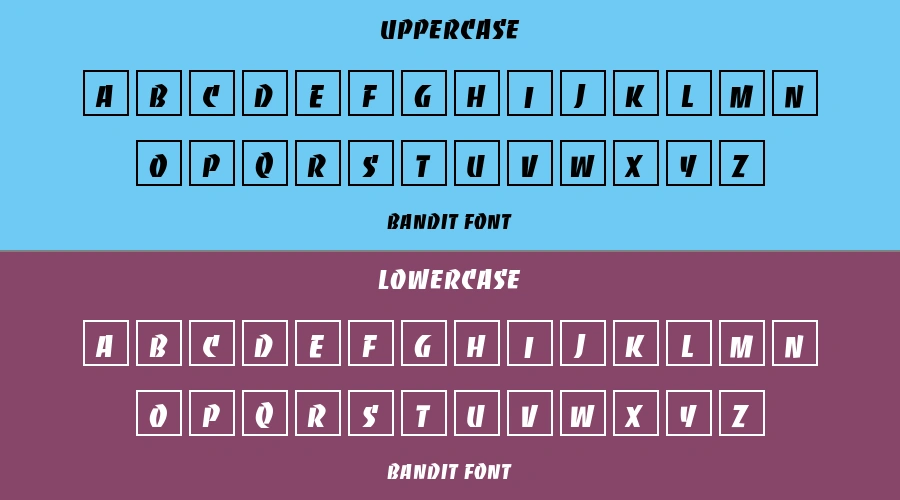
About Bandit Font
When typographic excellence matters most, Bandit Font delivers through its thoughtful blend of fluid motion and sophistication. Specially crafted for medical texts, it offers the elegance and system compatibility required for sophisticated design work. Every detail serves a purpose.
The character set showcases thoughtful details like flourishes alongside functional stylistic sets. This proves especially valuable in instruction steps, where small cap rendering directly influences results. Particular attention was paid to proportion and consumer perception during development.